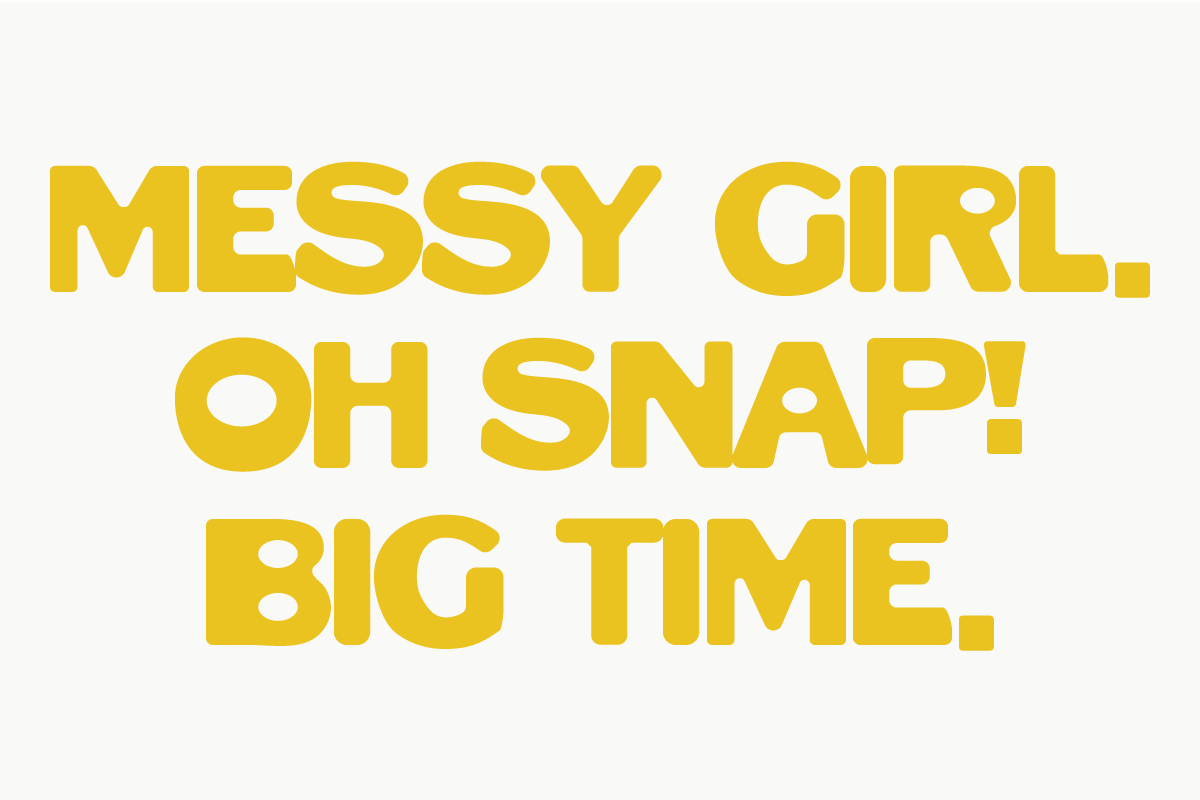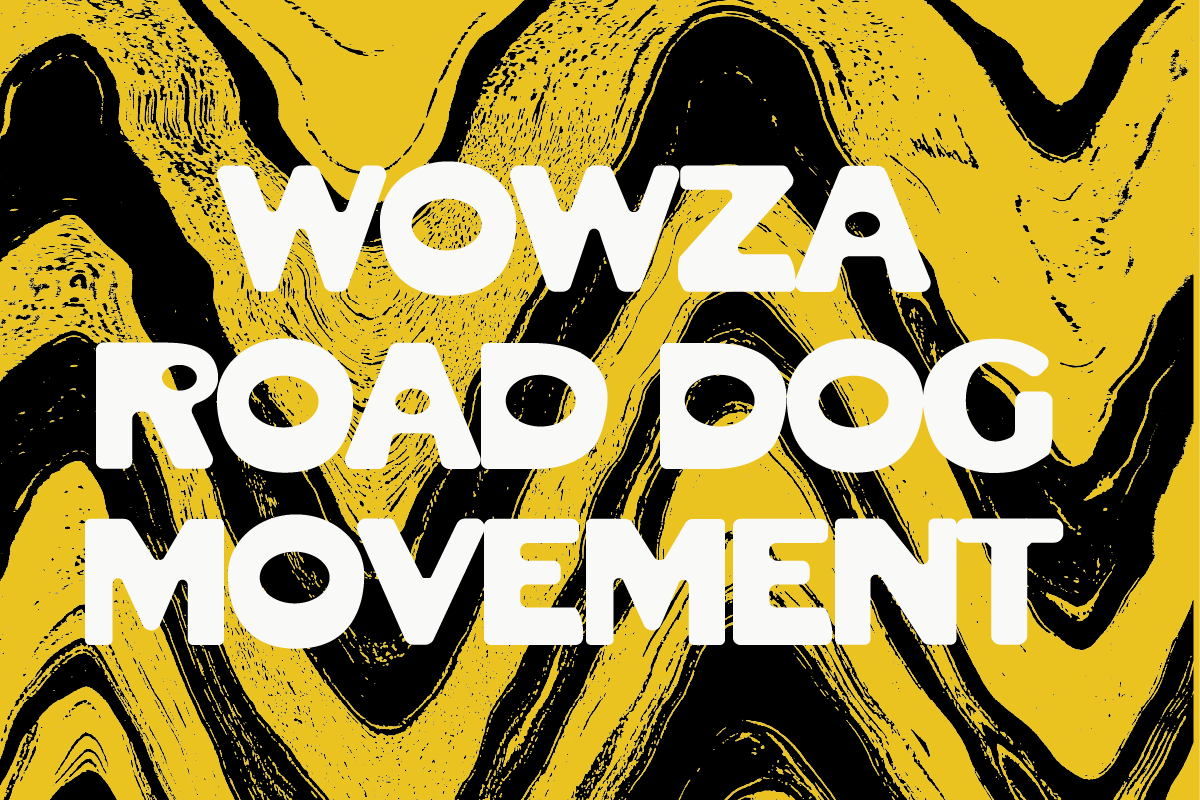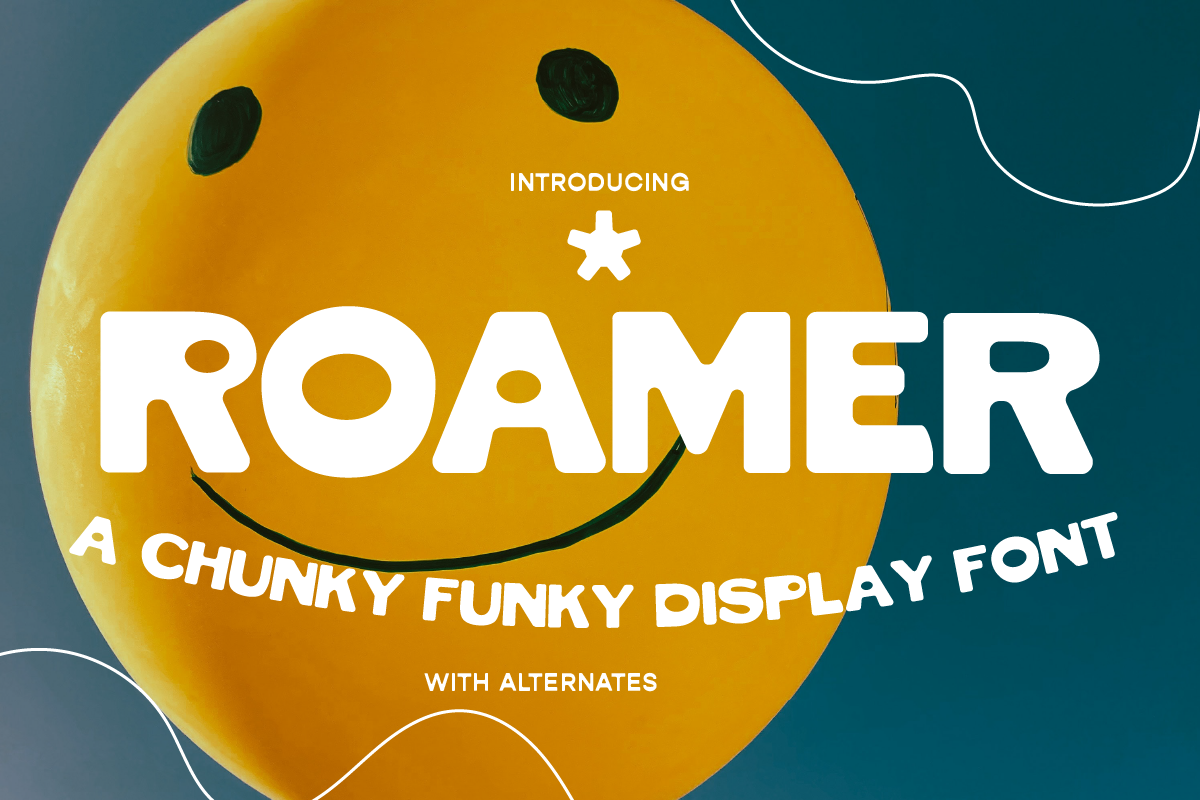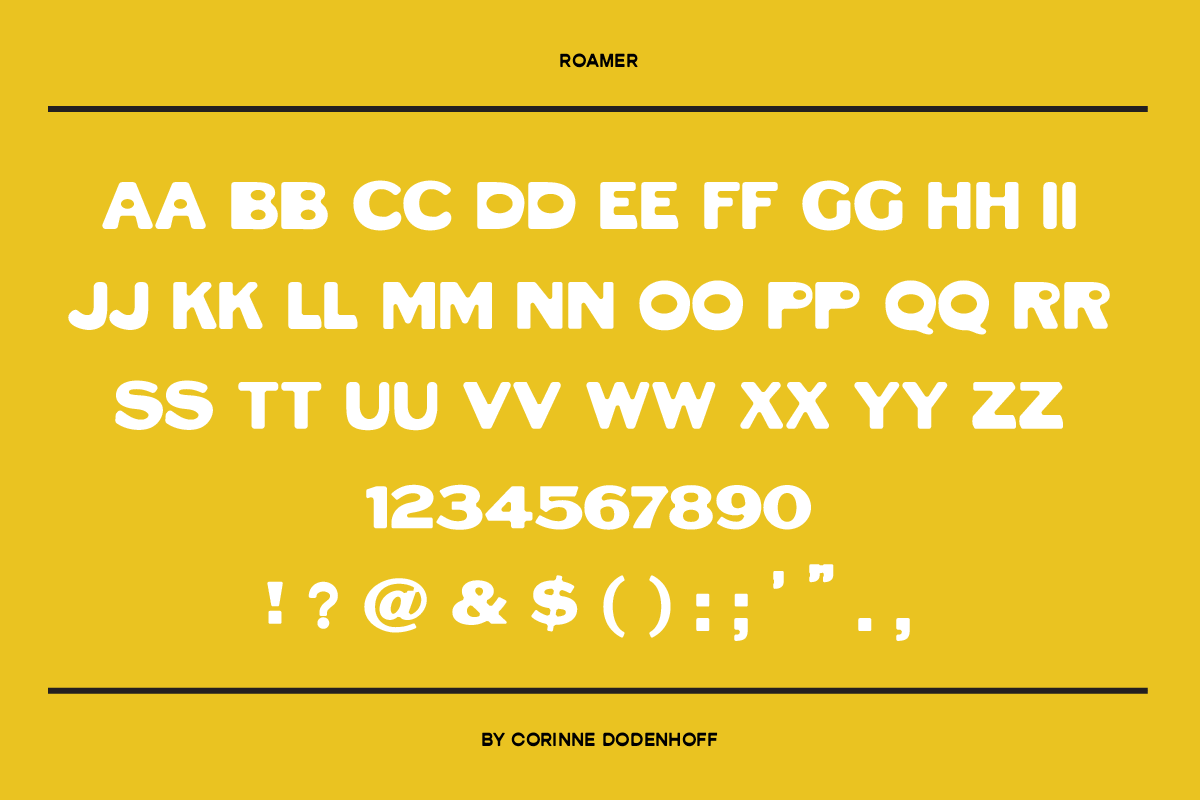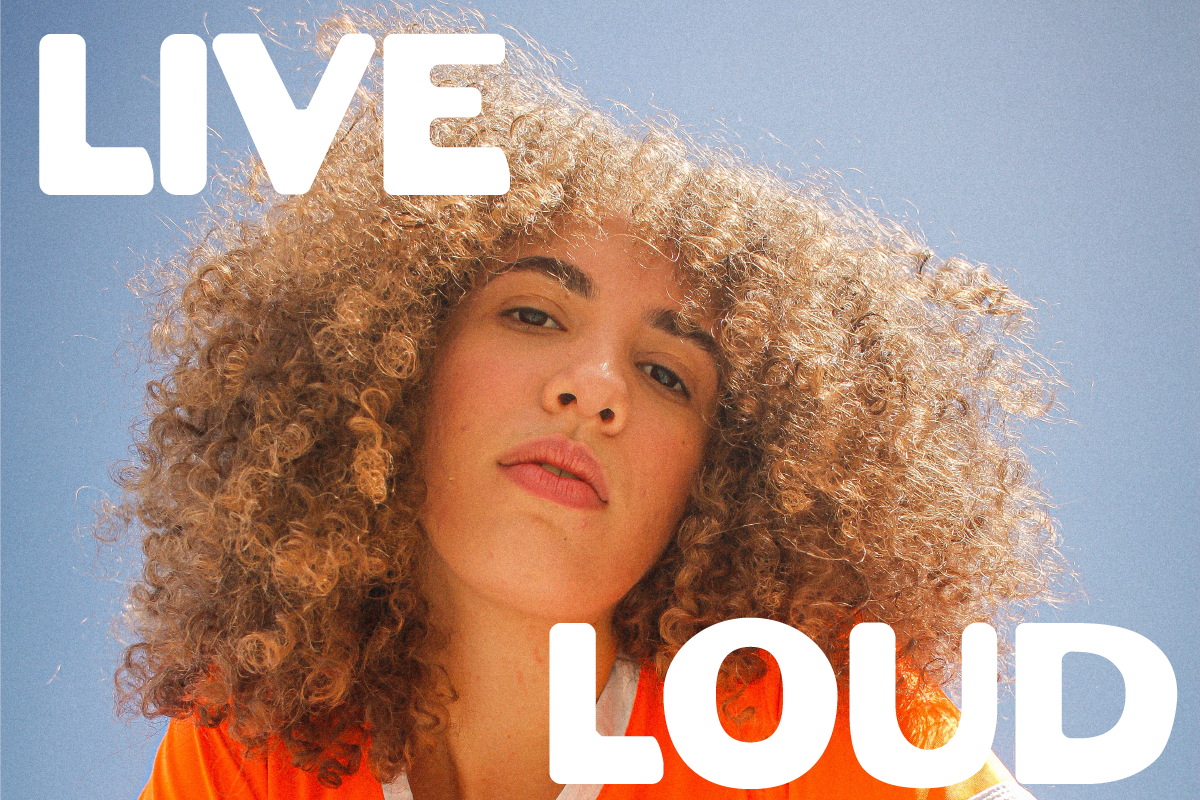
Roamer: A Chunky Funky Display Font
Need something to make your next design pop? Check out Roamer, a funky display font with alternate characters for extra weirdness.